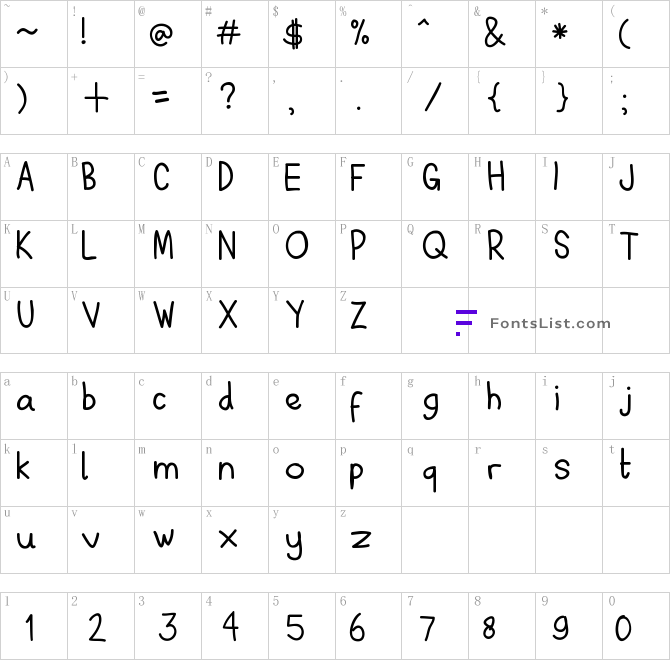
- Font Name:Axel Gilby Comic Sans
Axel-Gilby-Comic-Sans.ttf is a very beautiful artistic font, Axel-Gilby-Comic-Sans.ttf is widely used in the design and printing of various books and pictures,Axel-Gilby-Comic-Sans.ttf has a strong visual impact,Axel-Gilby-Comic-Sans.ttf is a commonly used font in newspapers, magazines and books, and is used in posters, e-commerce Poster design, store design, logo design, font design and other fields.Axel-Gilby-Comic-Sans.